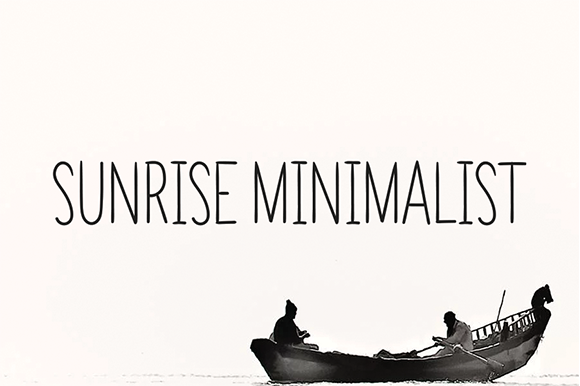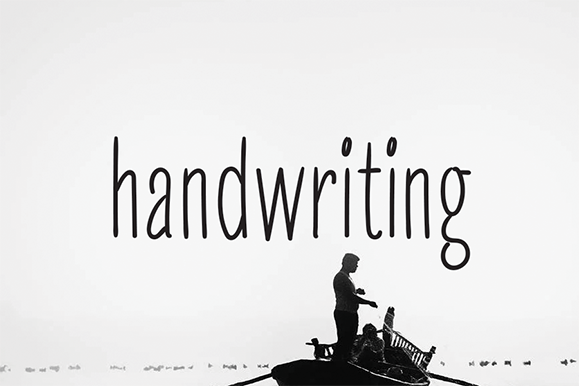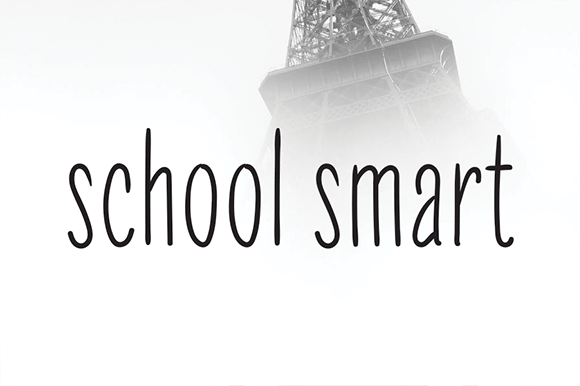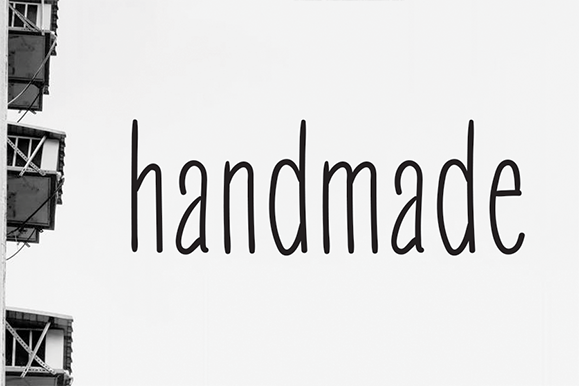
Sunrise Minimalist Font
About Sunrise Minimalist Font
Sunrise Minimalist is a cute and casual handwritten font with an incredibly friendly feel. Whether you’re looking for fonts for Instagram or calligraphy scripts for DIY projects, Sunrise Minimalist will turn any creative idea into a true piece of art!